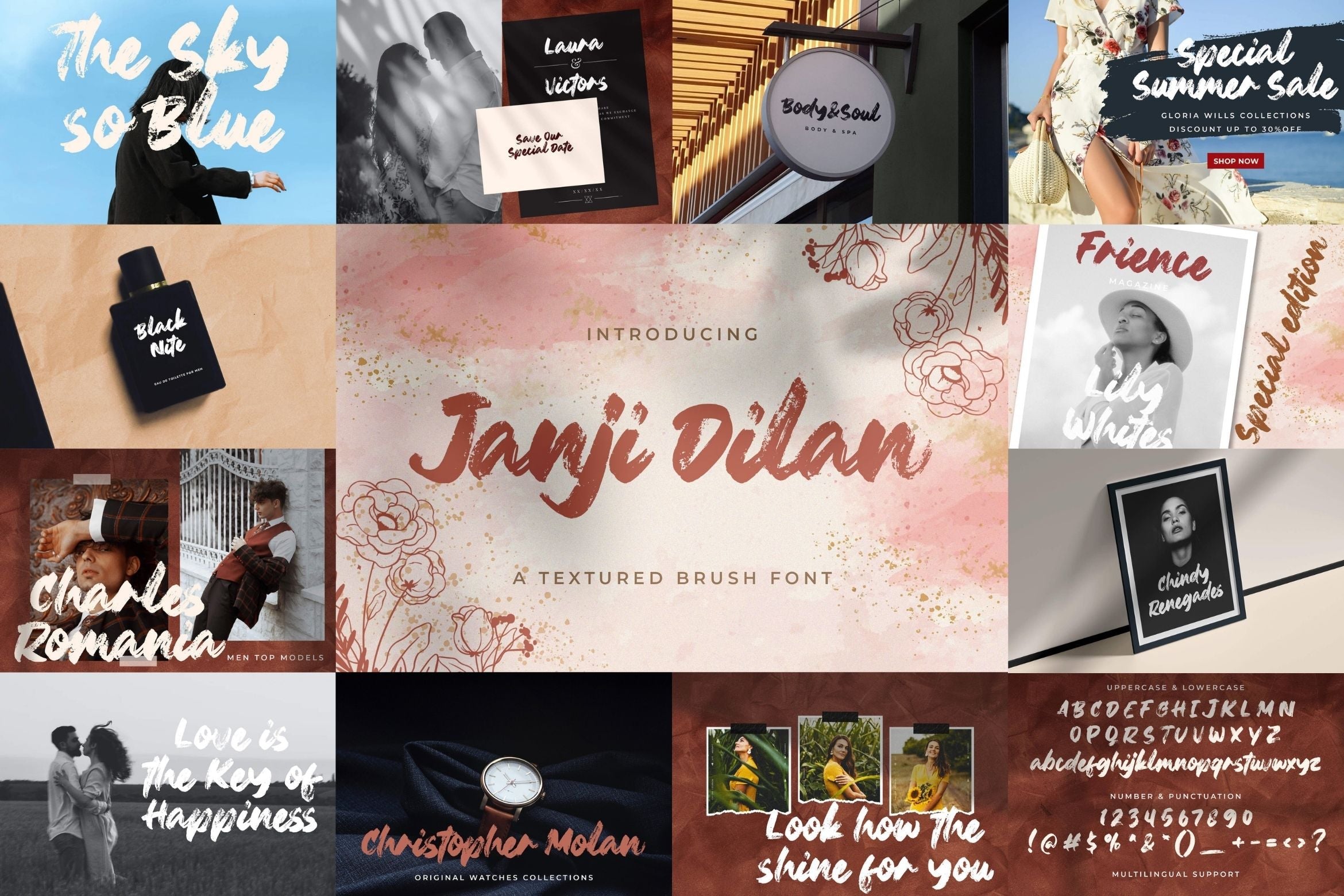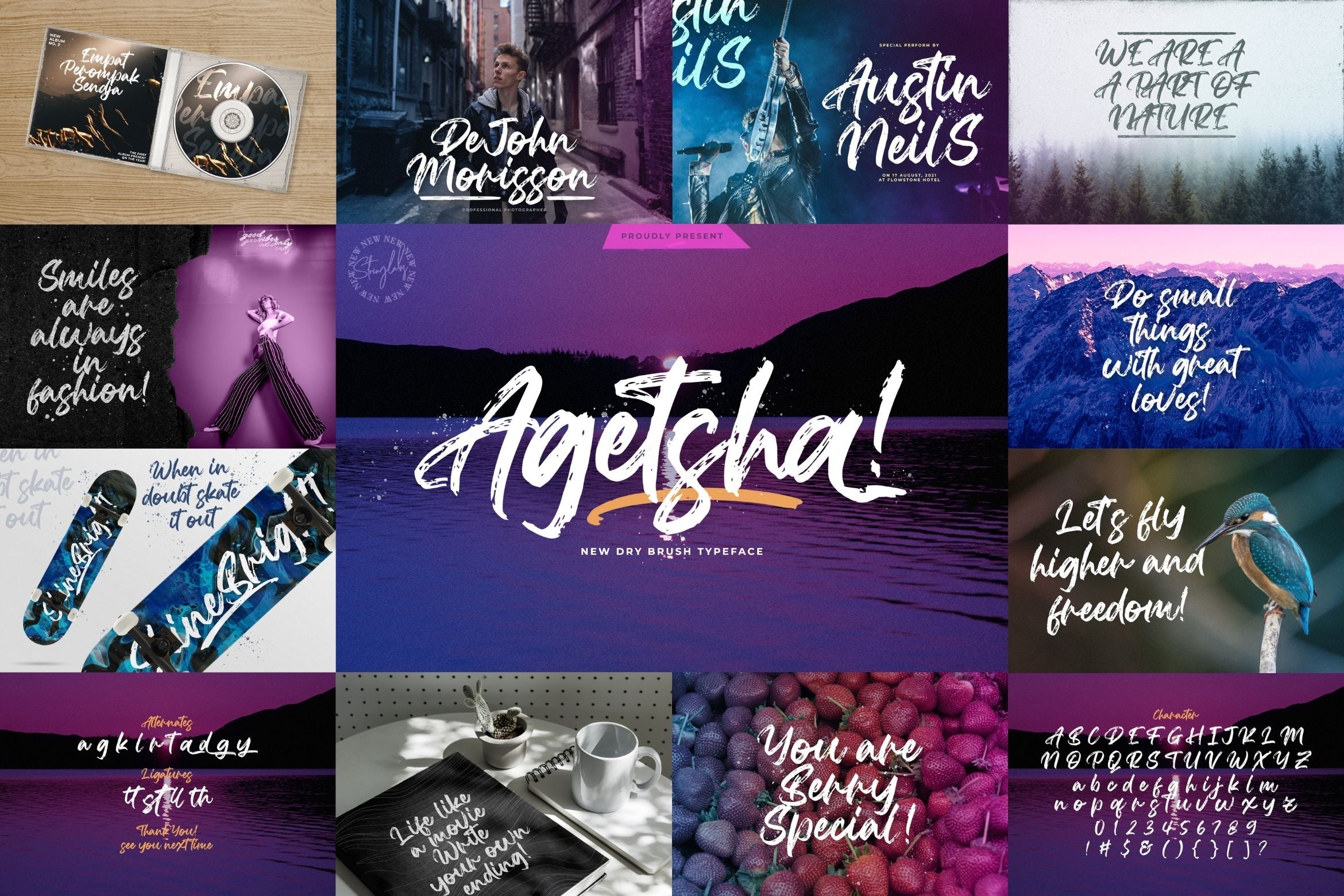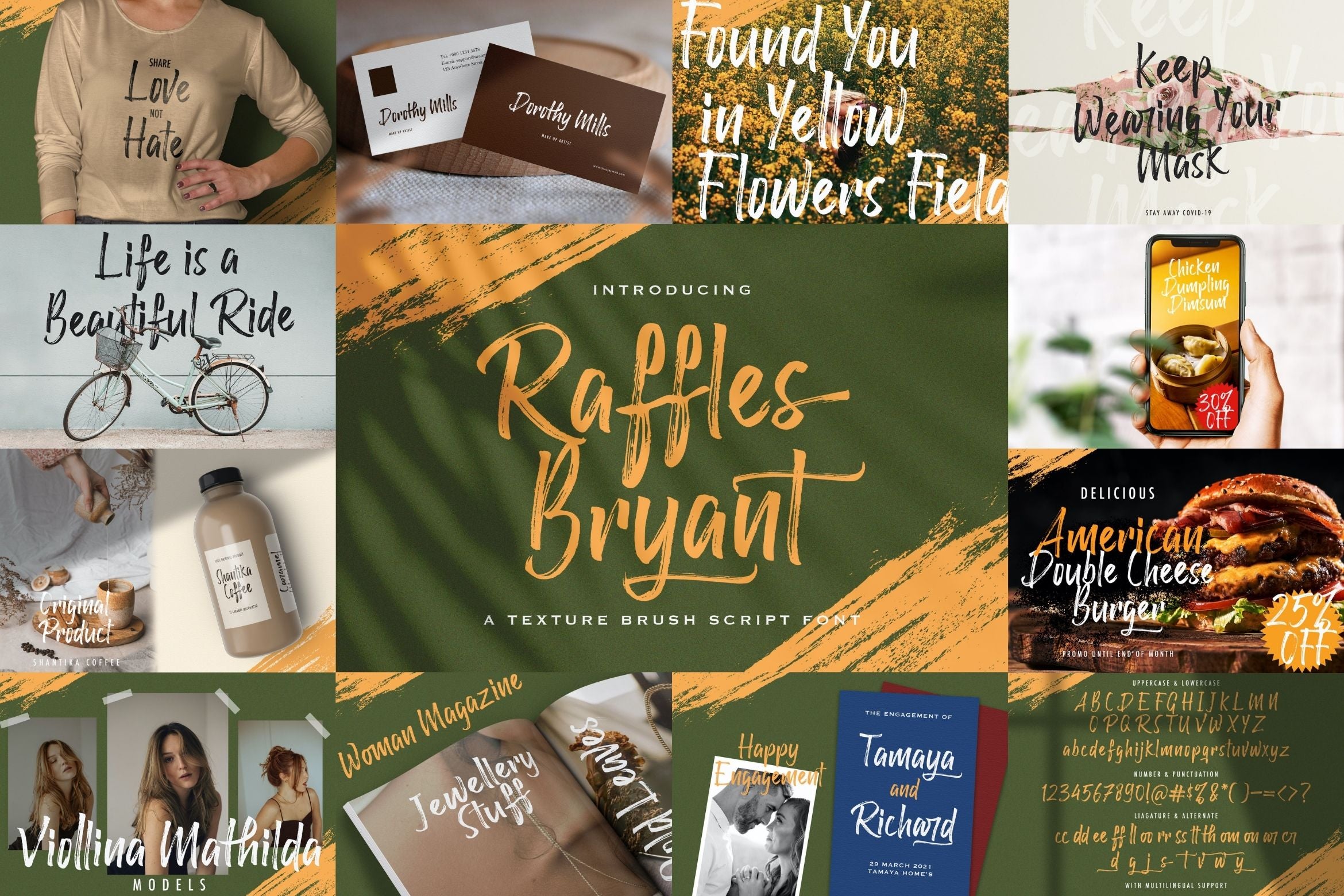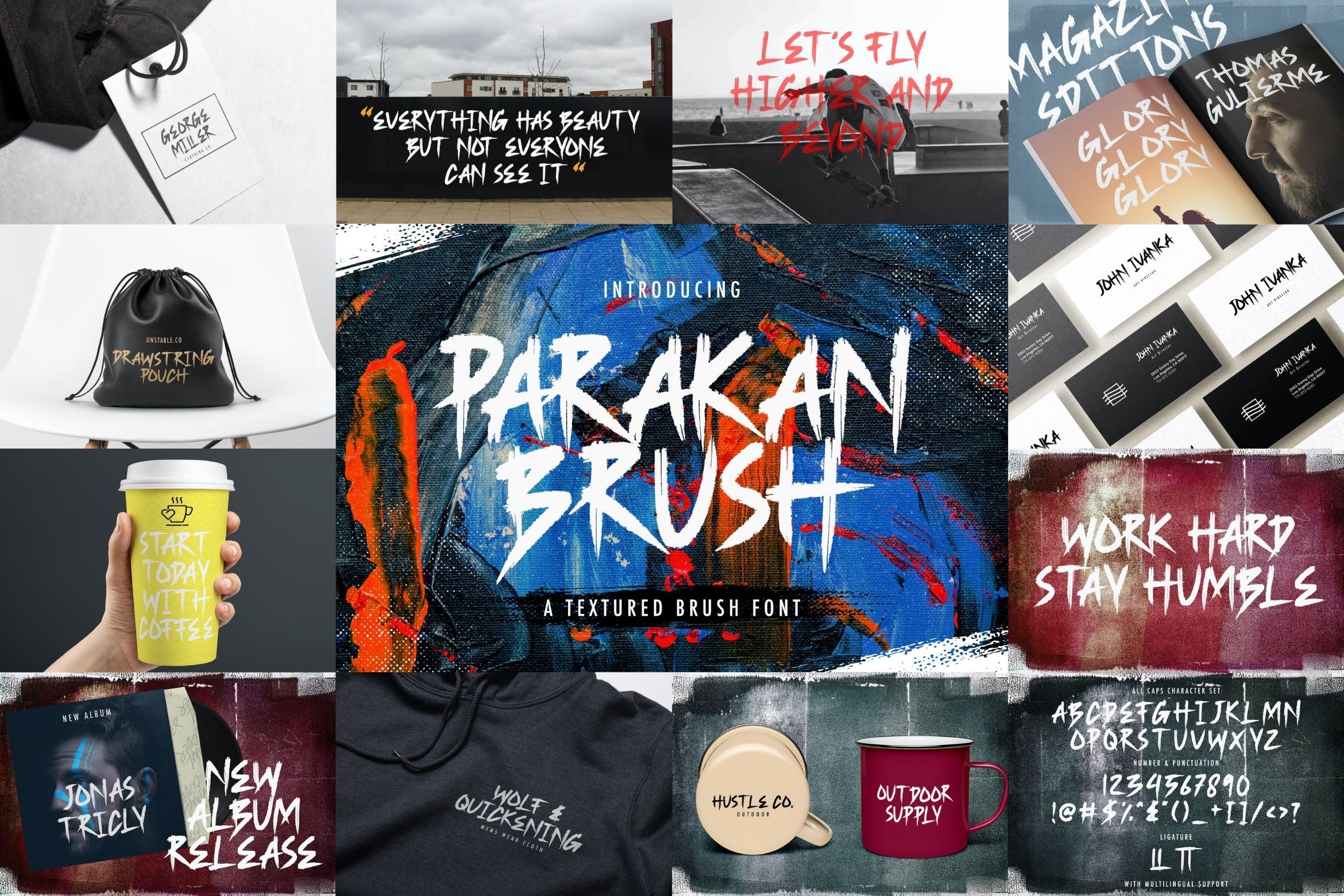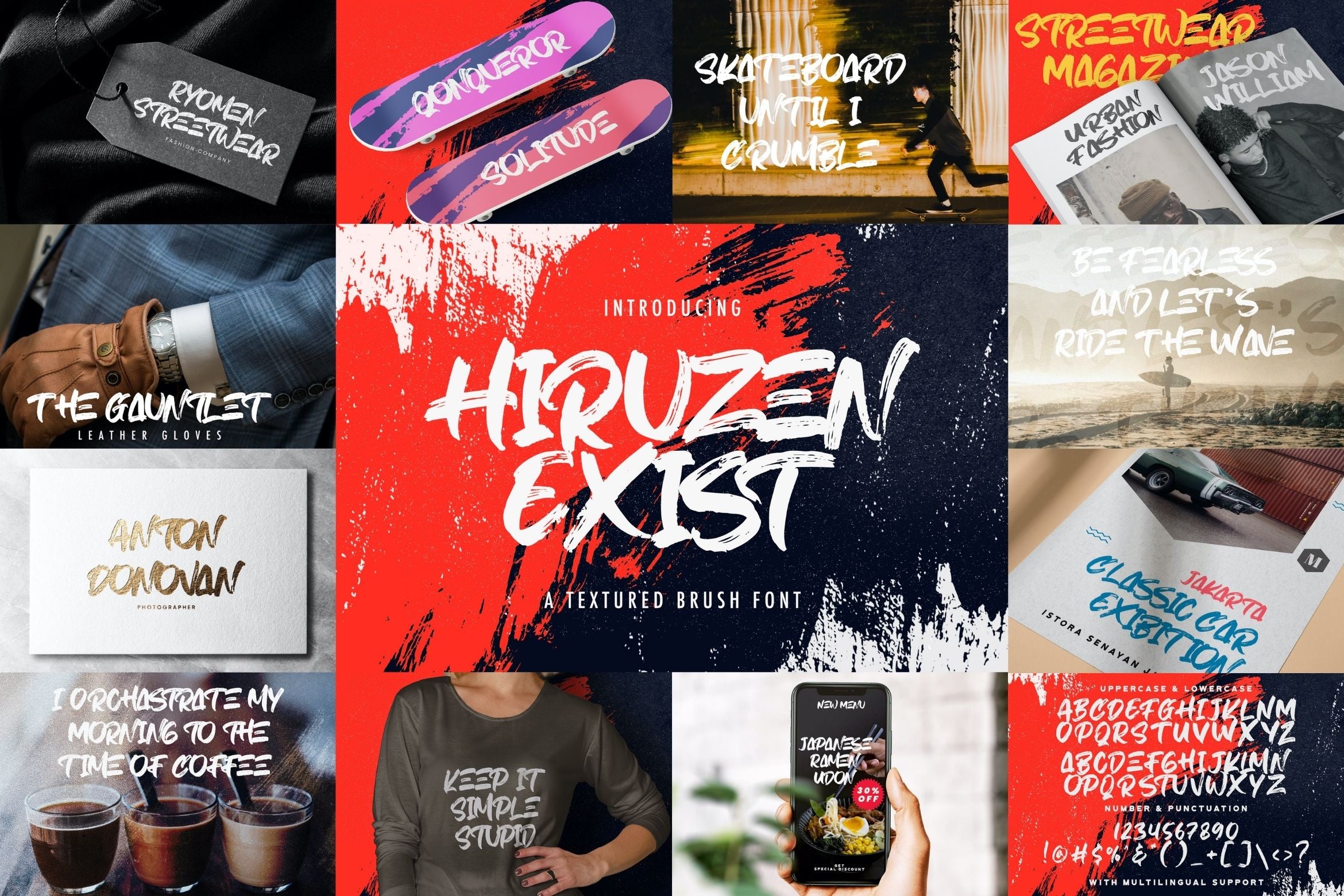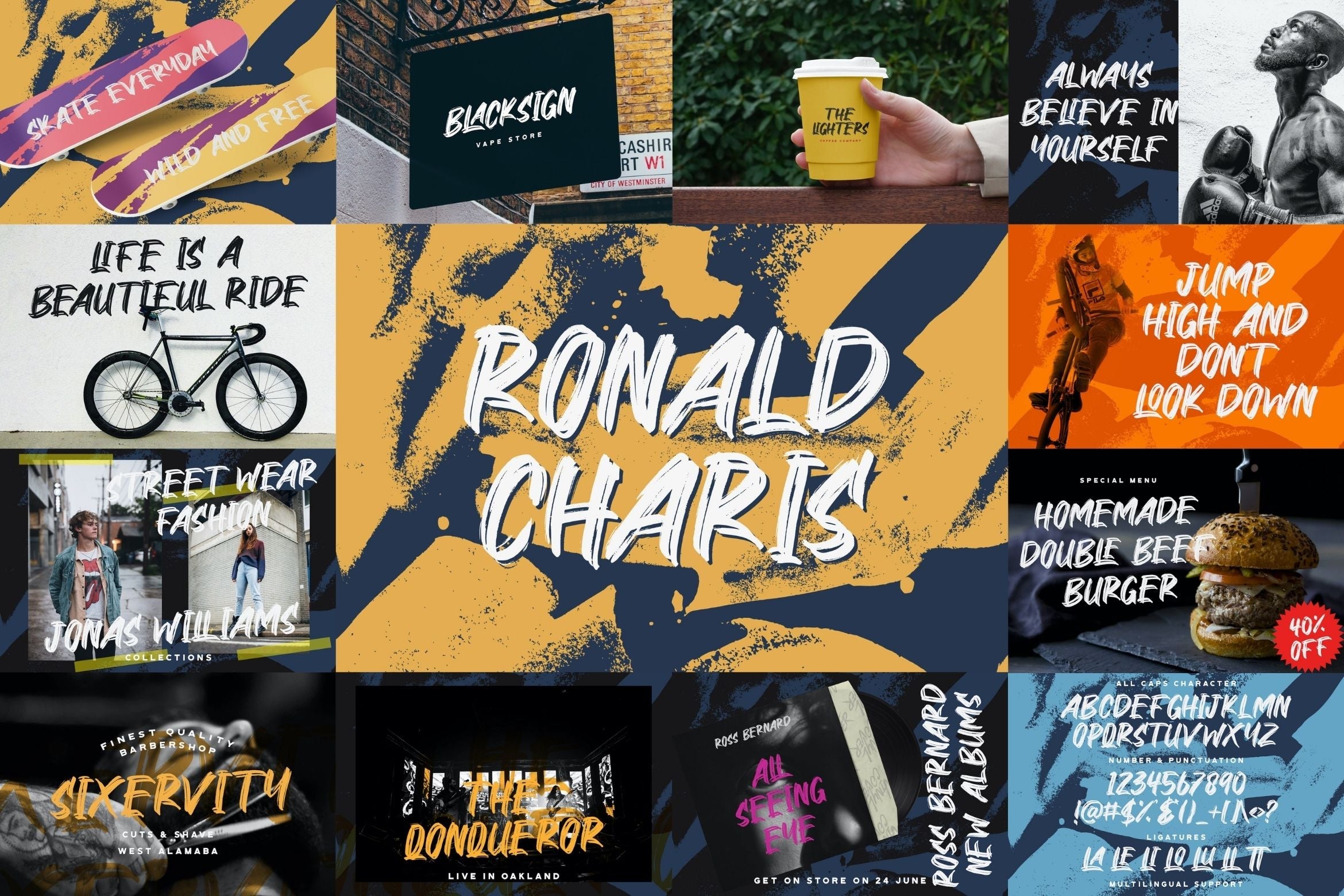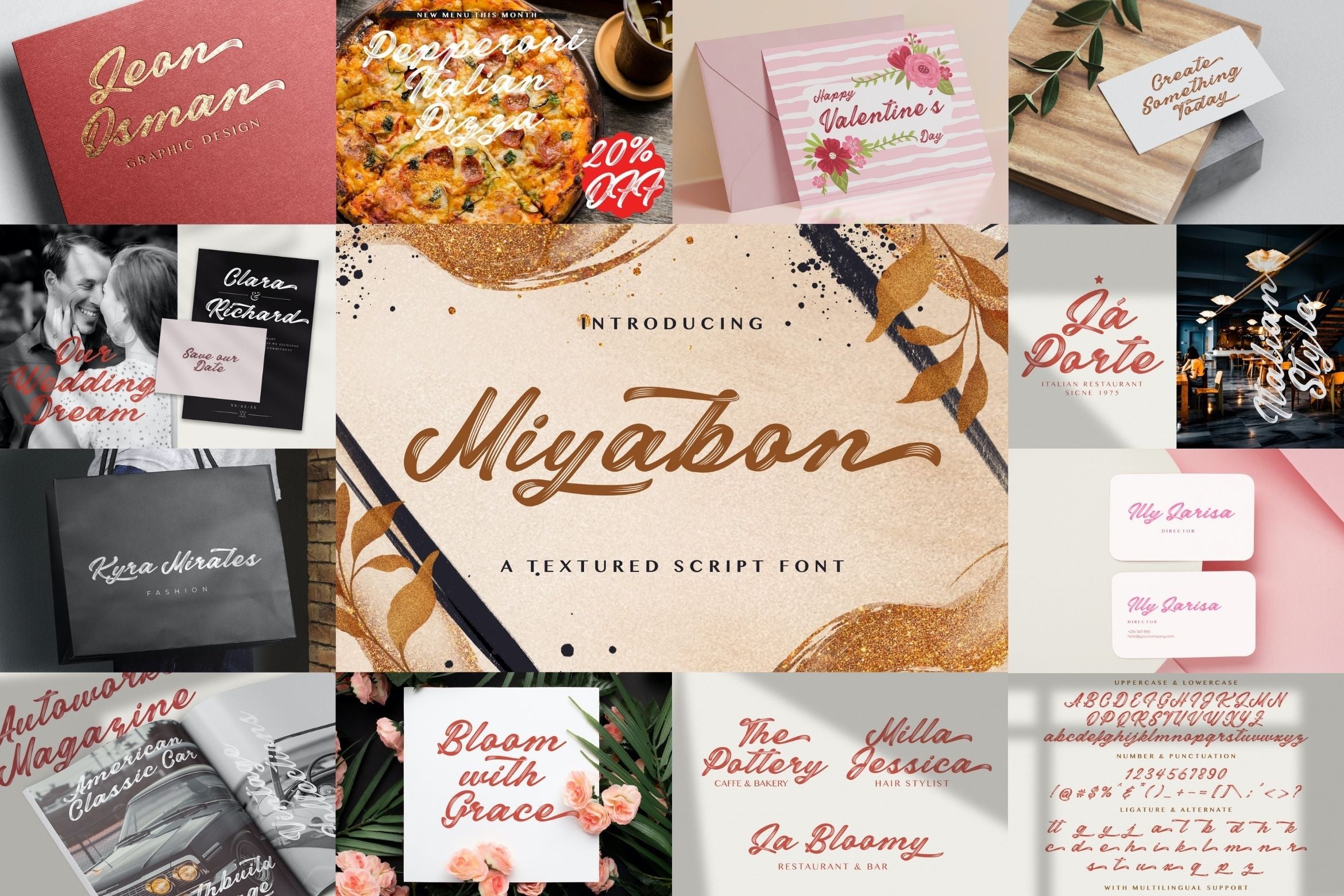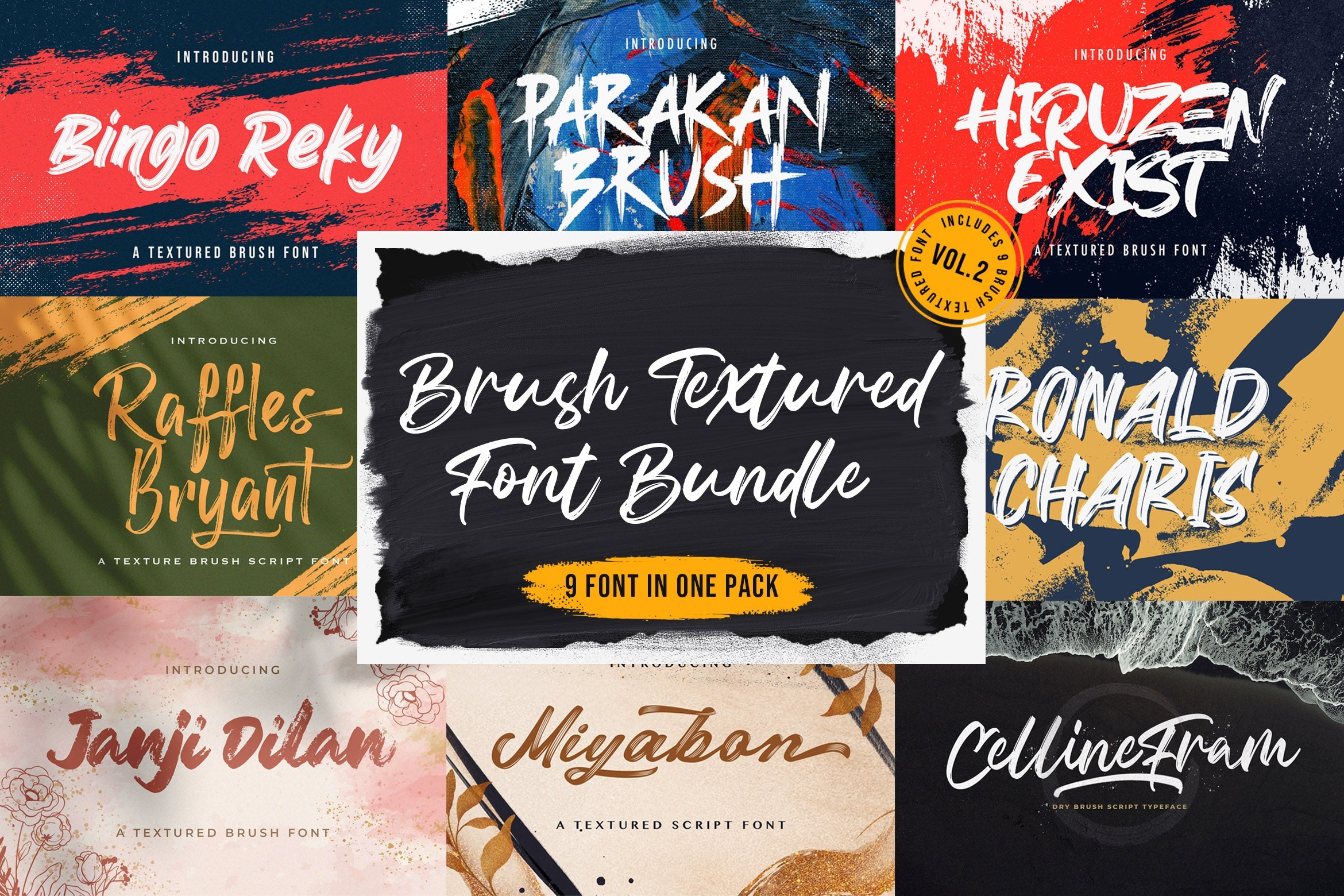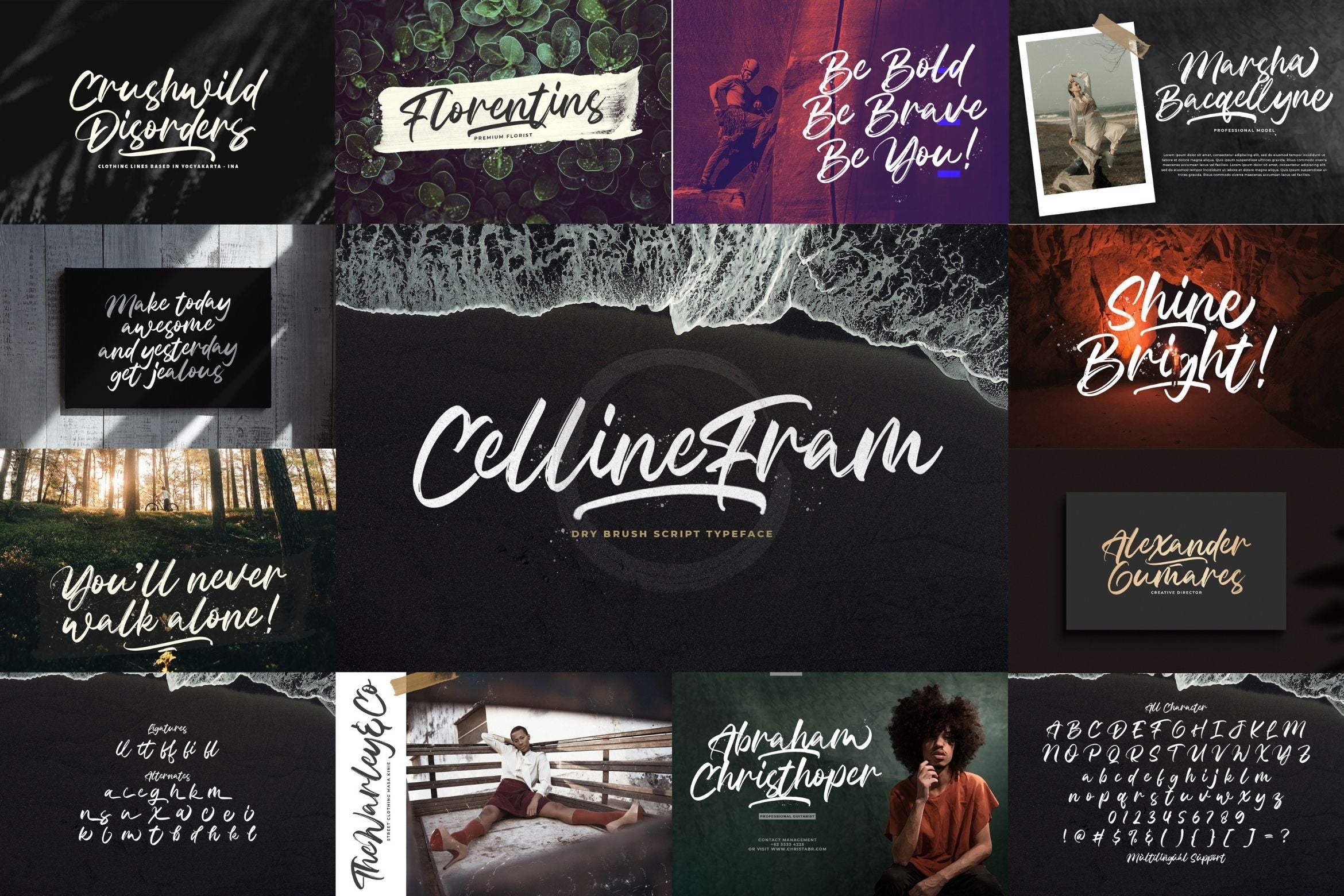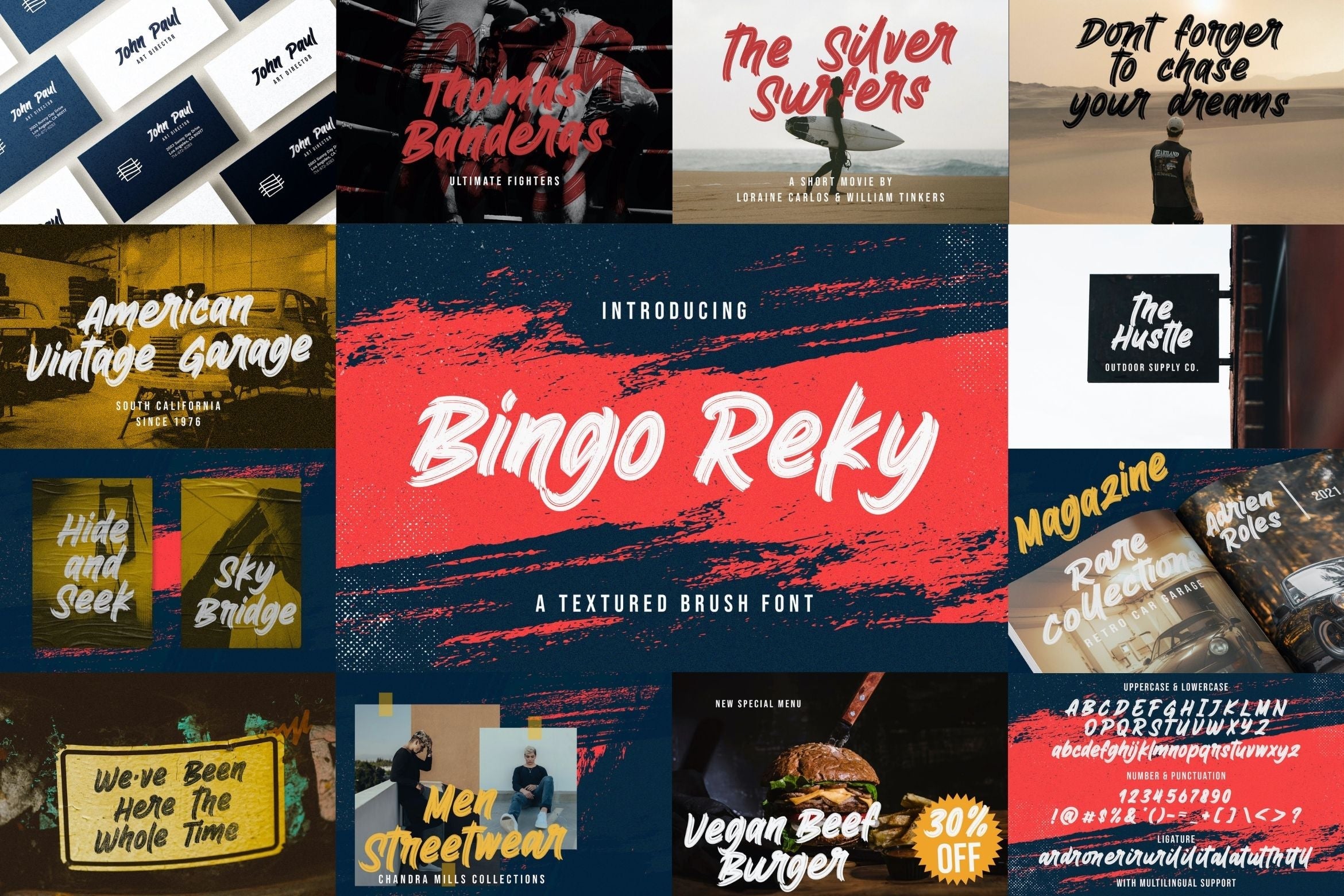
Brush Textured Font Bundle Vol. 2
About Brush Textured Font Bundle Vol. 2
Introducing Brush Textured Font Bundle Vol. 2 This font bundle contains 9 high quality textured handbrush fonts with authentic and unique styles. This Brush Font Bundle is a cool, brushed display font. This original and bold look will appeal to a wide range of crafty ideas, from letterheads and titles, to stationery. This Font Bundle is a lovely and brushed script font that exudes elegance and class. This font was particularly crafted for those who need a beautiful and refreshing look to their designs. Get inspired by its unique and beautiful style and add it to your favorite designs! FONTS INCLUDED : 1. Celline Fram 2. Agethsa 3. Janji Dilan 4. Bingo Reky 5. Ronald Charis 6. Miyabon 7. Hiruzen Exist 8. Parakan Brush 9. Raffles Bryant Fonts available in format : OTF, TTF, WOFF, WOFF2